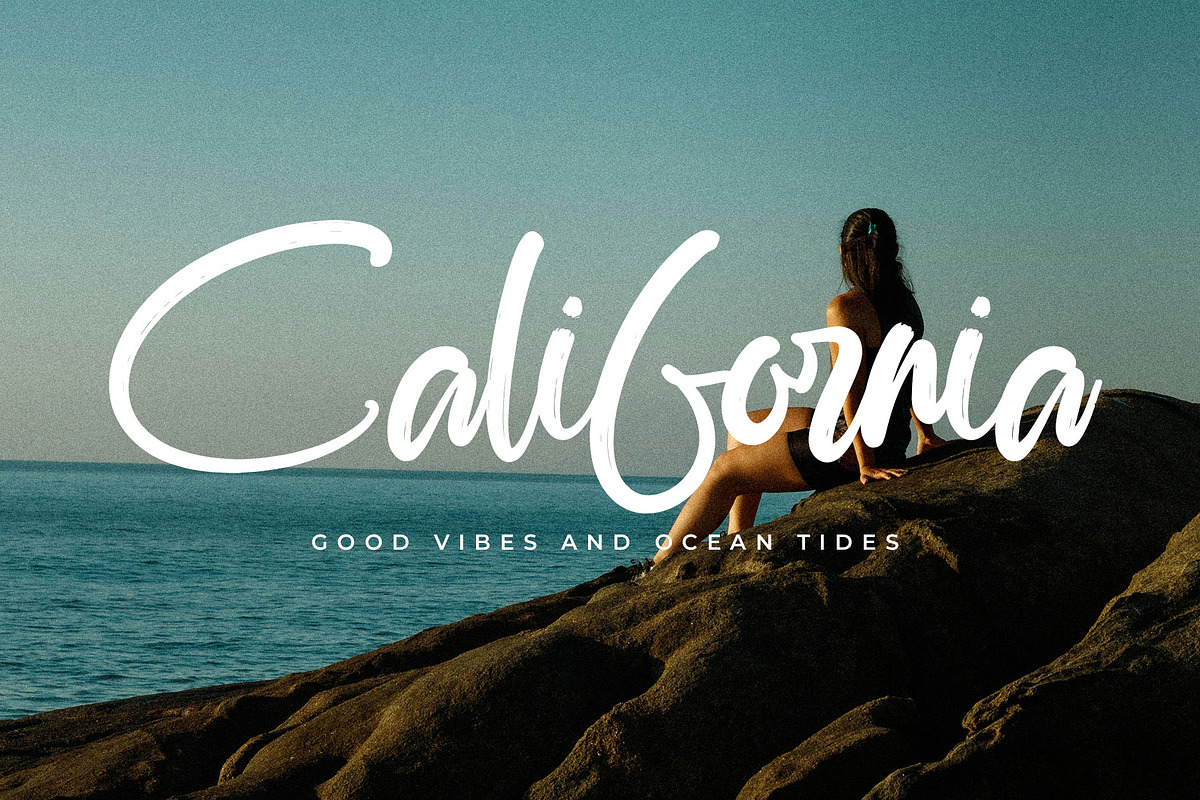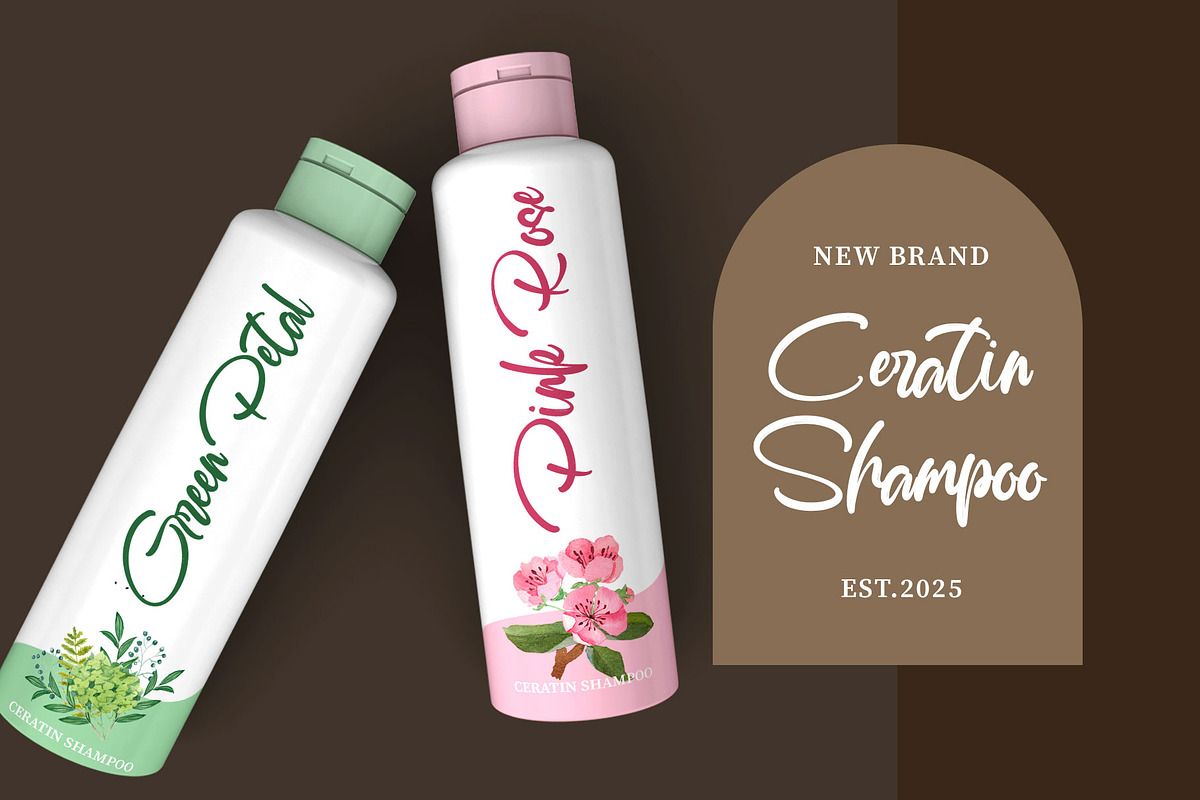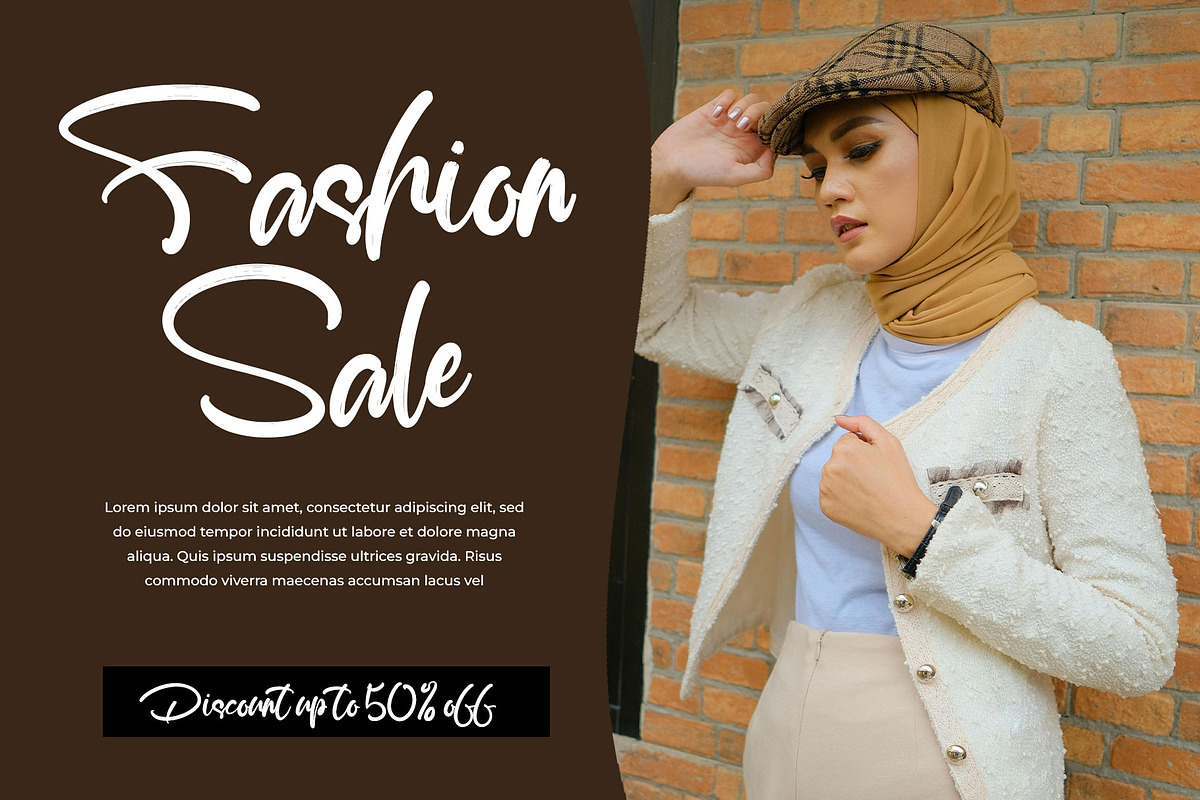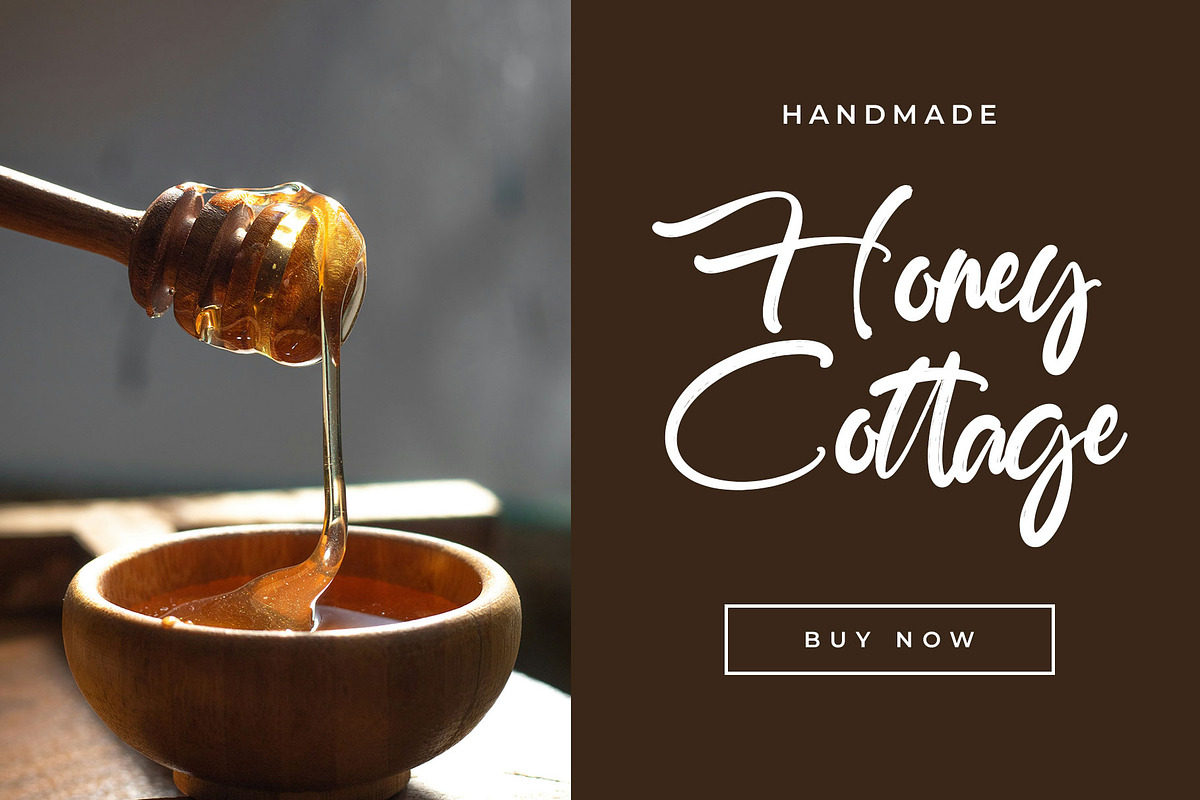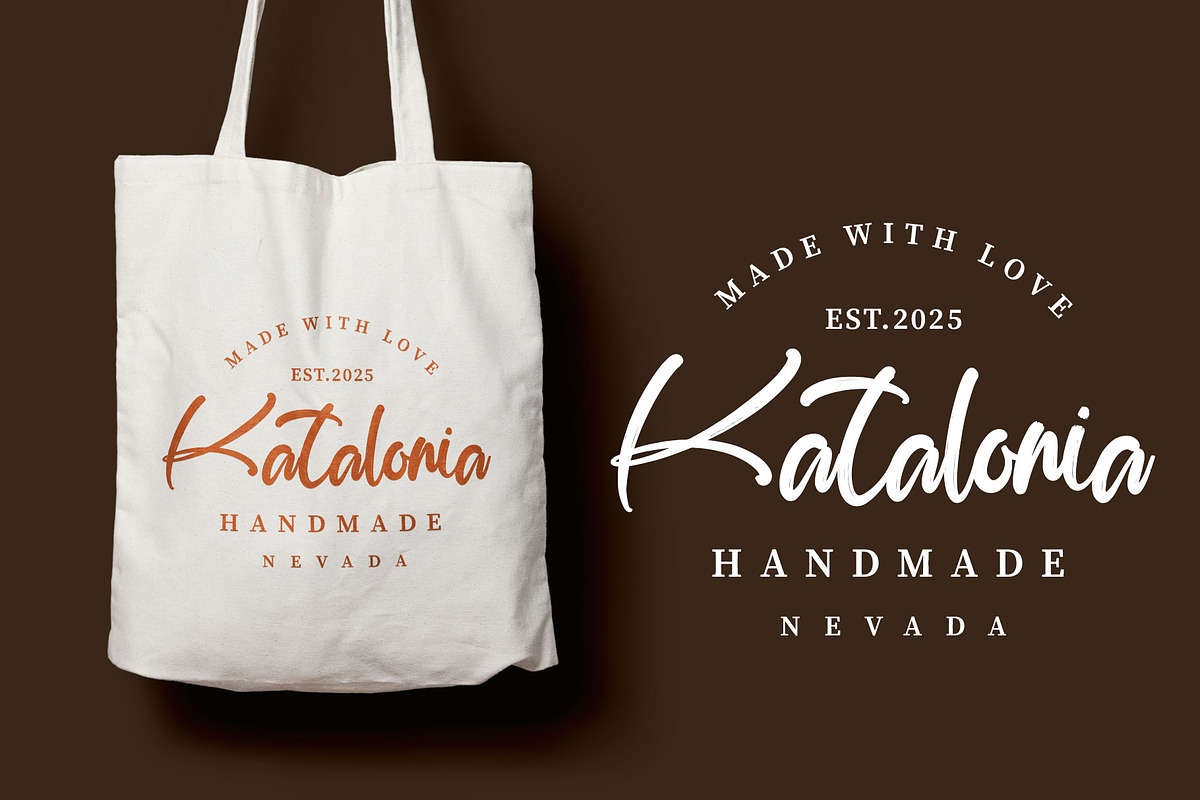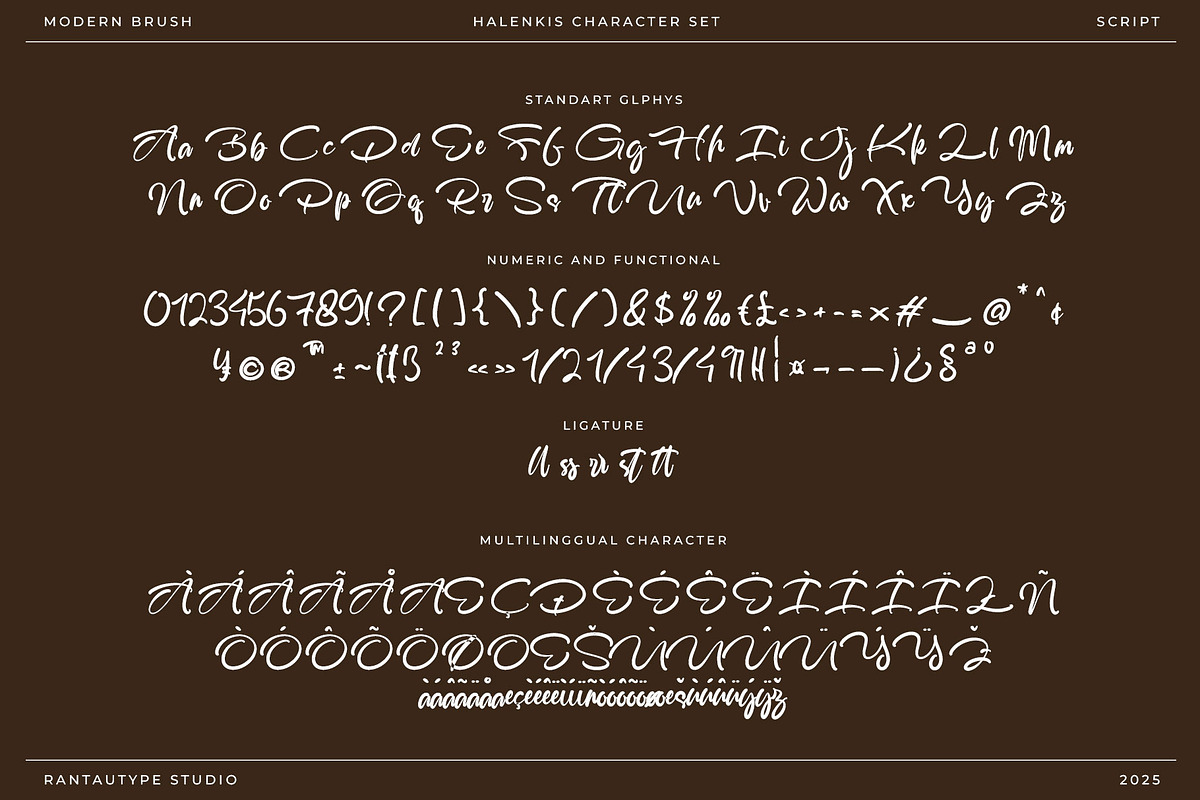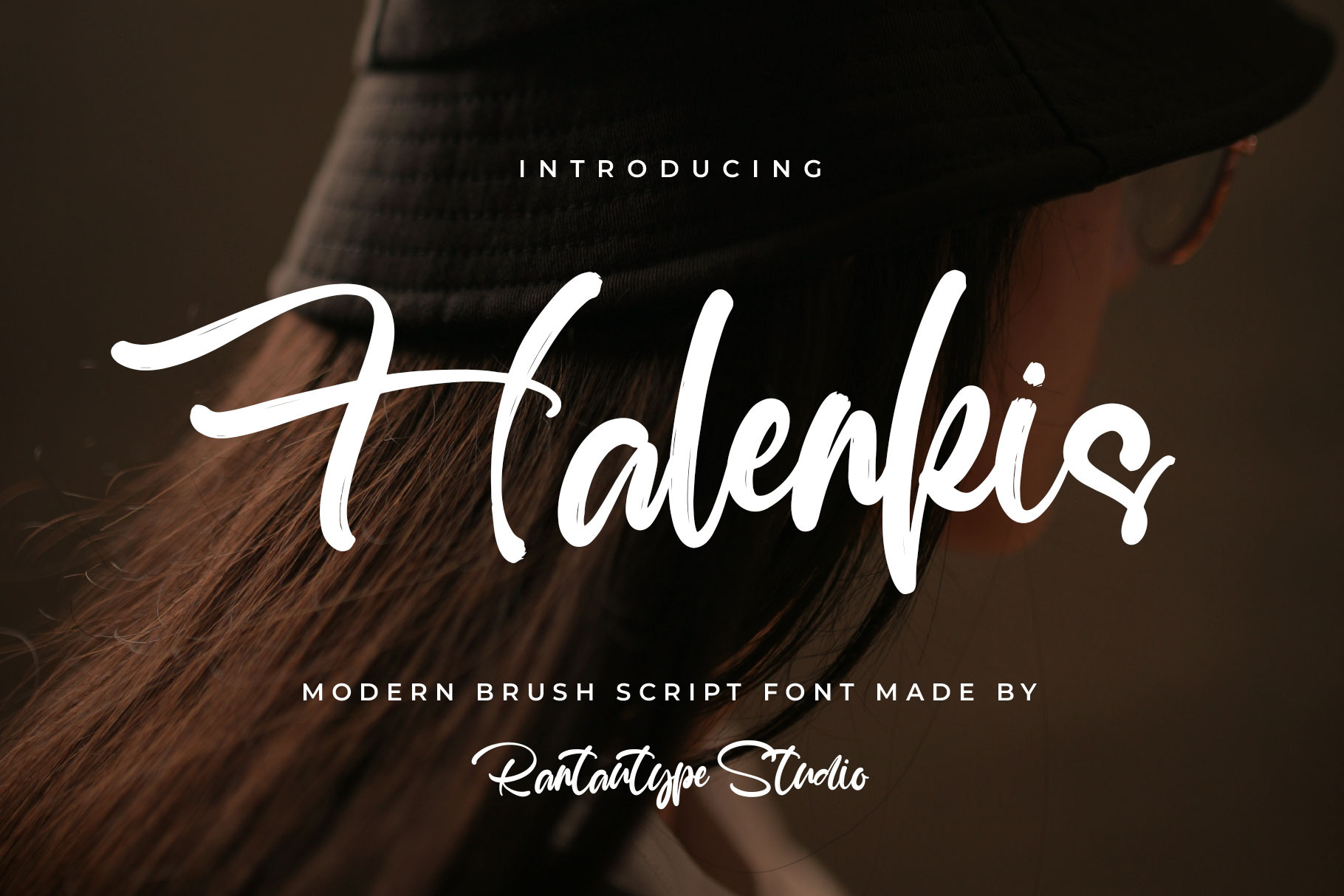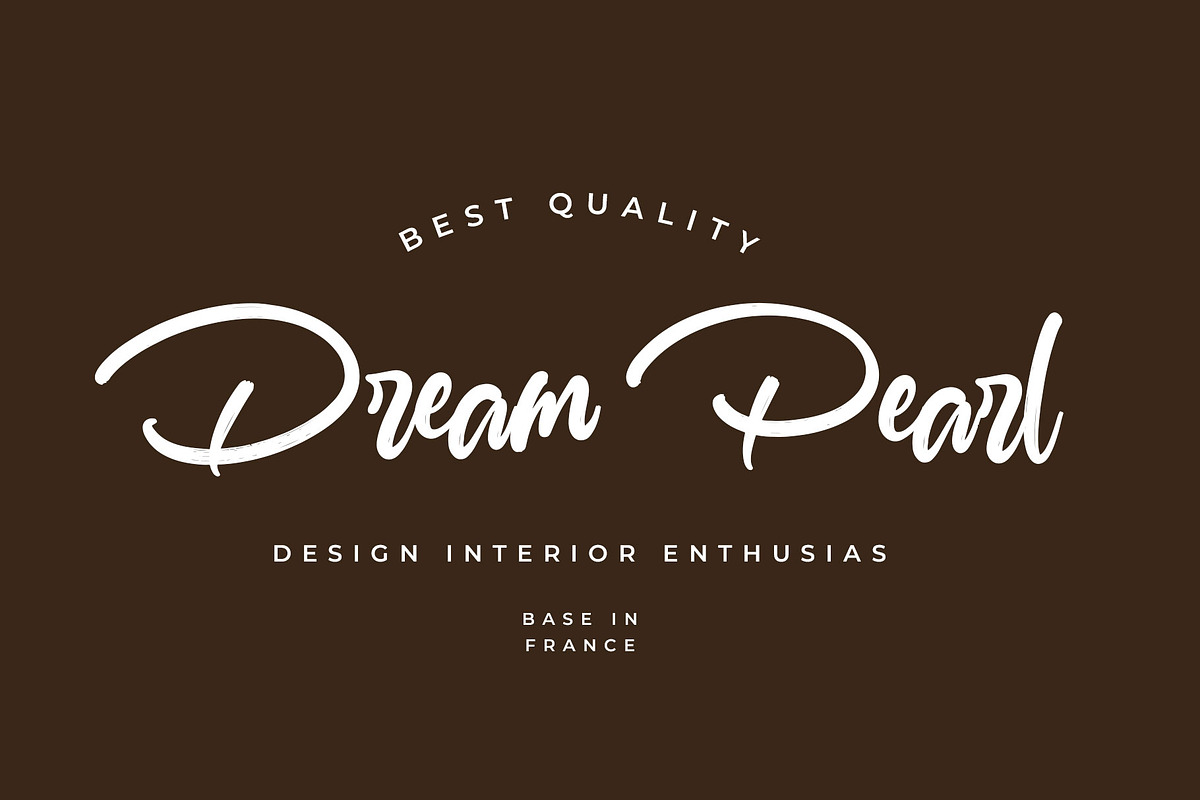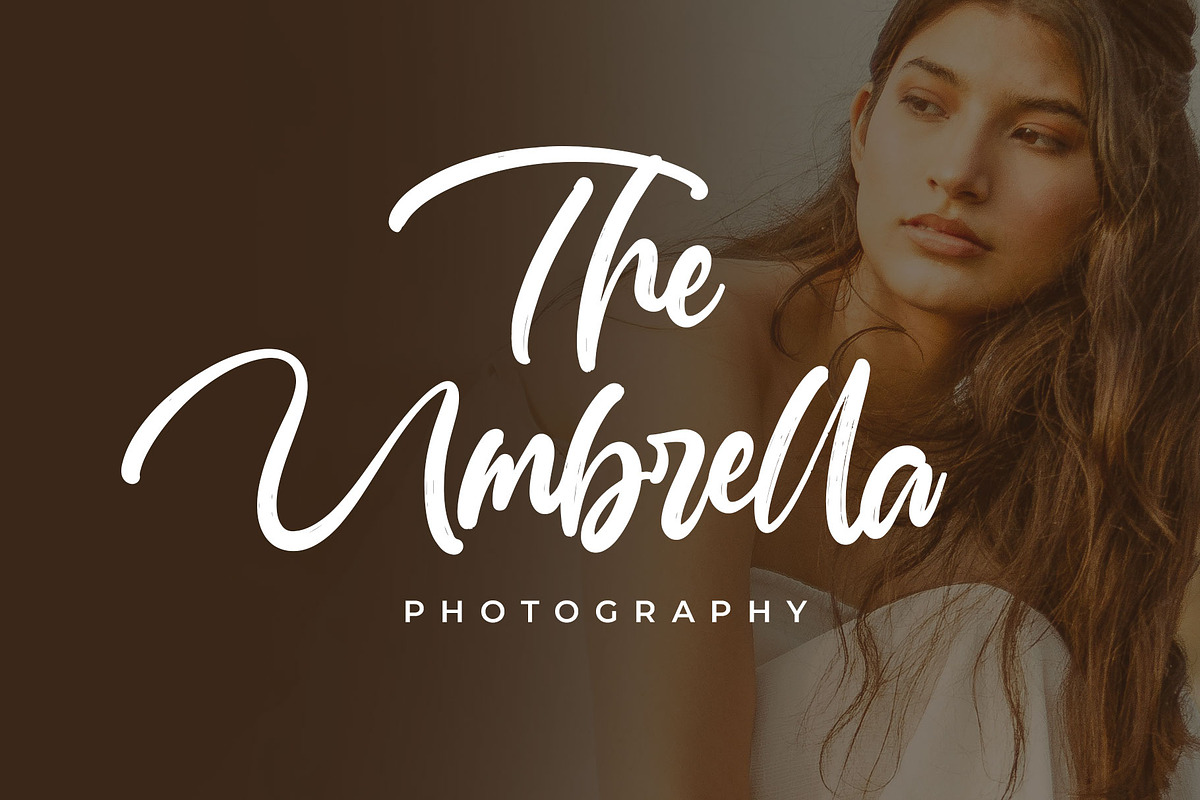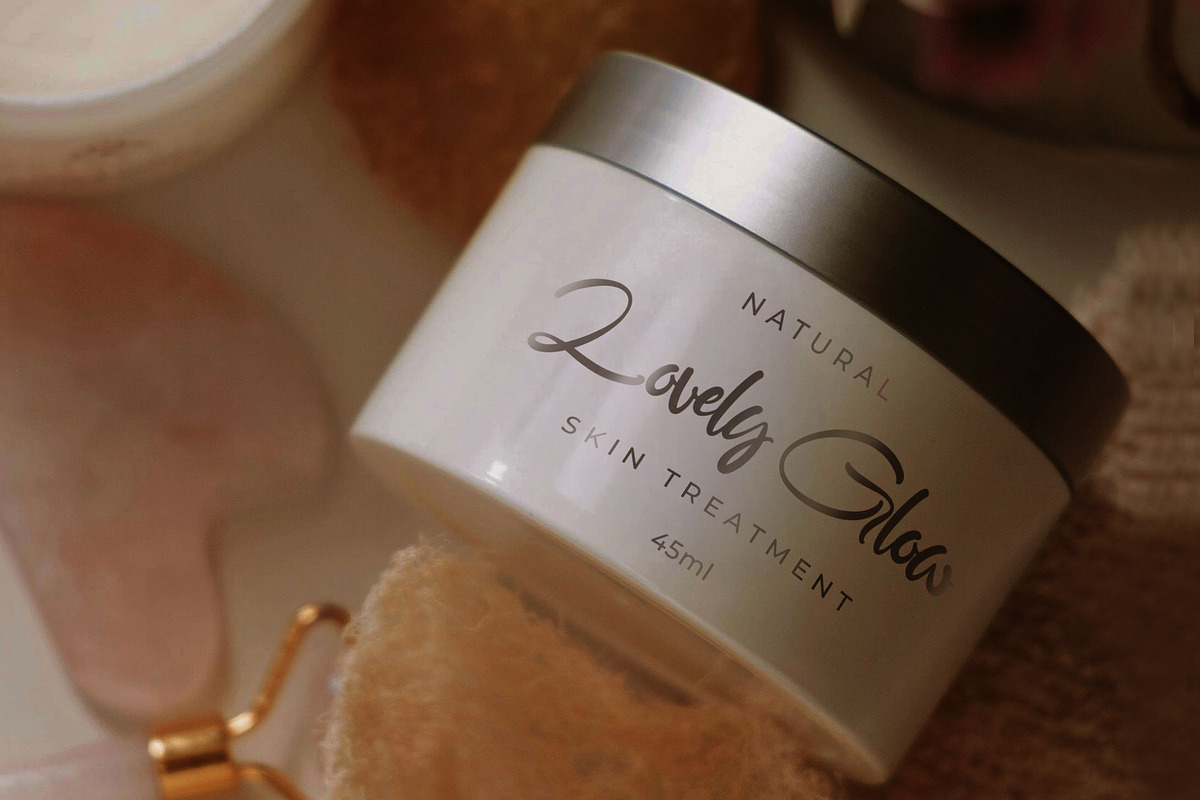
Halenkis Modern Brush Font
Halenkis is modern brush font made with love by rantautype studio. Halenkis come with dynamic typeface that combines the expressive strokes of hand-painted lettering with the clean precision of contemporary design.
Halenkis is a perfectly choice for any creative endeavor, creating, modern, lifestyle design such as logotype, title, cover, branding, invitations, wedding designs, display and magazine, social media posts, advertisements, printed quotes, product packaging, corporate brand, product designs, labels, photography, watermarks, special events and any other project with modern touch.
- Standart Glyphs
- Alternate and ligature
Fonts include Multilingual Character for: Afrikaans, Albanian, Asu, Basque, Bemba, Bena, Breton, Chiga, Cornish, Dutch, English, Estonian, Filipino, Finnish, Friulian, Galician, Gusii, Indonesian, Irish, Italian, Kabuverdianu, Kalenjin, Kinyarwanda, Luo, Luxembourgish, Luyia, Machame, North, Oromo, Portuguese, Quechua, Romansh, Rombo, Rundi, Rwa, Samburu, Sango, Sangu, Scottish, Gaelic, Sena, Shambala, Shona, Soga, Somali, Spanish, Swahili, Swedish, Swiss, German.